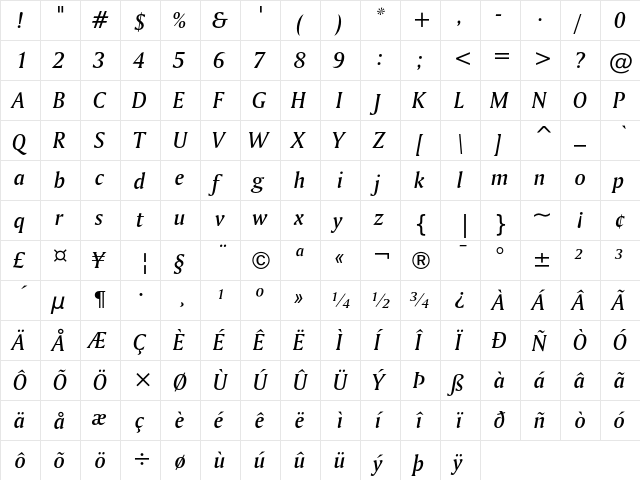
Bitstream Amerigo Medium Italic
Design Context for Bitstream Amerigo Typeface
Bitstream Amerigo offers clean, dependable letterforms without strong stylistic allegiance, making it a practical choice for designers who need flexibility. The slanted form adds forward momentum and visual energy.
Pro Tip: Try Bitstream Amerigo for annotation and caption copy alongside an upright companion — the contrast in angle creates a dynamic but ordered typographic system.